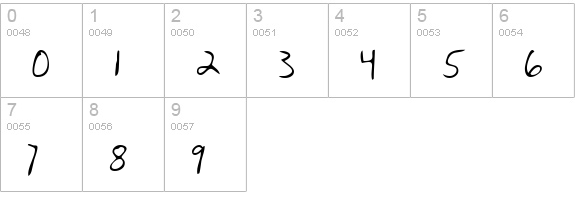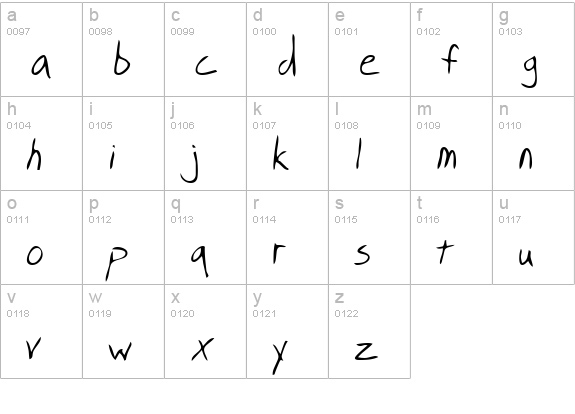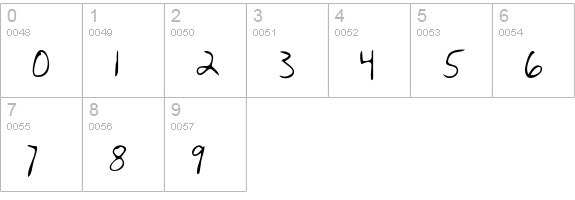
OlliesHand Regular Font Details
OlliesHand Regular is the standard, neutral variant in the OlliesHand typeface family \xE2\x80\x94 well suited to general body text, paragraphs, and standard typographic work.
OlliesHand Regular font is a charming and playful typeface that exudes a sense of warmth and friendliness. Its handwritten appearance adds a personal touch to any design project, making it perfect for invitations, greeting cards, and other creative endeavors. The smooth curves and flowing strokes of OlliesHand Regular give it a unique and inviting look that is sure to capture attention. Best of all, OlliesHand Regular font is available for free download at FontsMarket.com. This means you can easily add this delightful font to your collection without any cost. Whether you're a seasoned designer looking for a fresh addition to your toolkit or a hobbyist seeking a fun new font to play with, OlliesHand Regular is a fantastic choice. Download it today and let your creativity soar with this beautiful and freely accessible typeface.